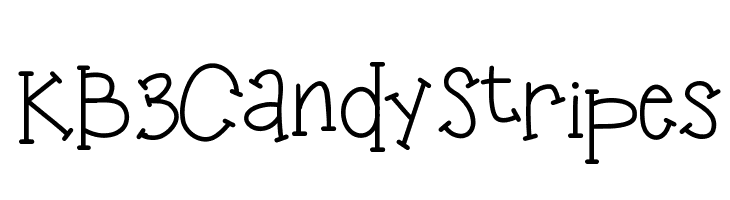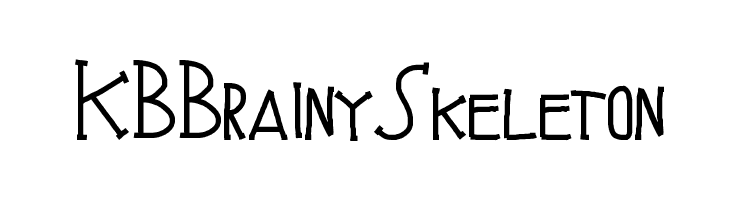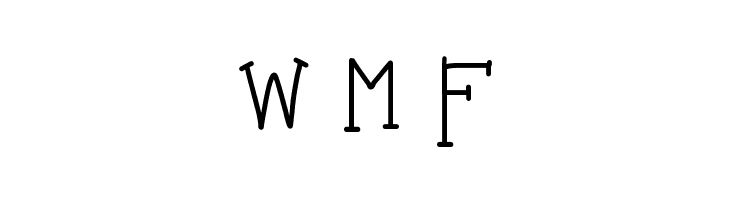
( Fonts by K26 Fonts )
A playful, whimsical font with a hand-drawn feel and lively character design.
( Fonts by KB3Teach )
A playful, hand-drawn font with a whimsical and artistic style.
( Fonts by KB3Teach )
A playful, hand-drawn font with intricate spider web-like patterns.
( Fonts by Khrys Bosland )
A playful, hand-drawn font with a quirky, skeleton-like design.
( Fonts by Khrys Bosland )
A playful, hand-drawn font with dotted outlines and a whimsical style.
( Fonts by Khrys Bosland )
A bold, playful font with a hand-drawn, whimsical style.
( Fonts by Khrys Bosland )
A playful, hand-drawn font with a dotted outline and whimsical style.
( Fonts by Khrys Bosland )
A playful, hand-drawn font with wavy lines and a casual style.
( Fonts by Khrys Bosland )
A playful, hand-drawn font with a bouncy, energetic style and double-line effect.
( Fonts by Khrys Bosland )
A playful, bold, hand-drawn font with a cartoonish style.